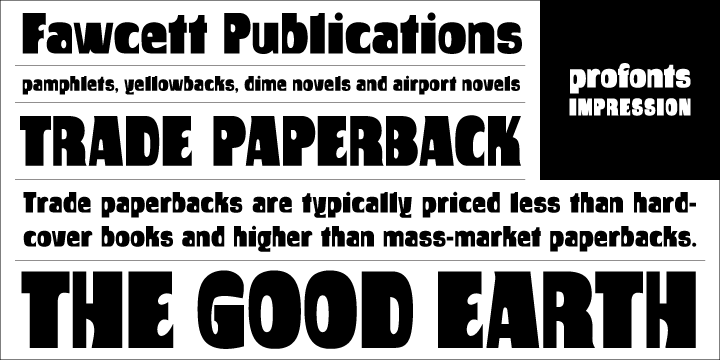
Impression™
from profonts
Design Credits
Designed by: Ralph M. Unger
Designed when: 2008
Design owned by: profonts
Impression
Impression is indeed quite impressive: art nouveau, hippy, flower power, groovy…
Impression was redesigned and digitally remastered by German designer Ralph M. Unger for profonts.
You want to have fun – take Impression!